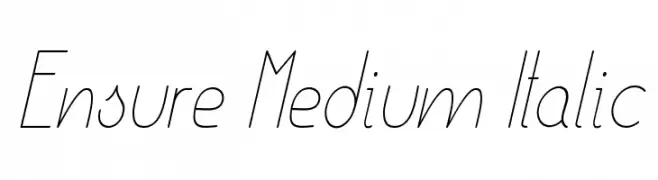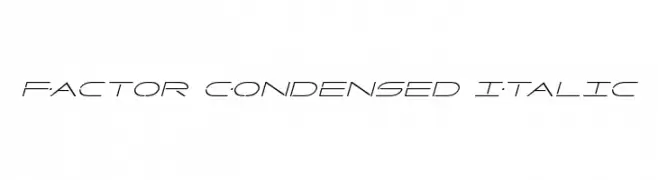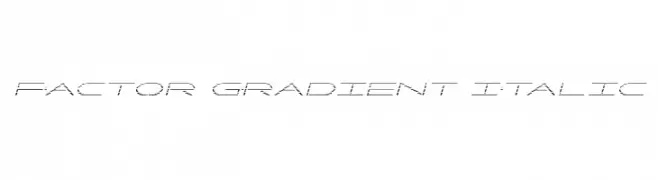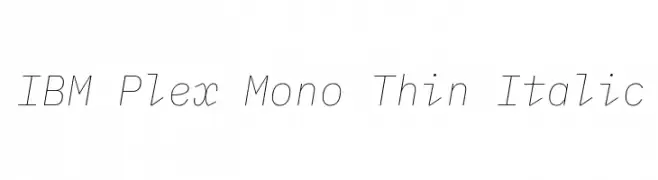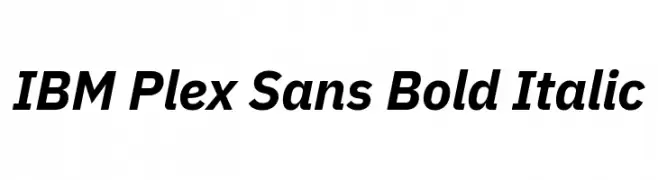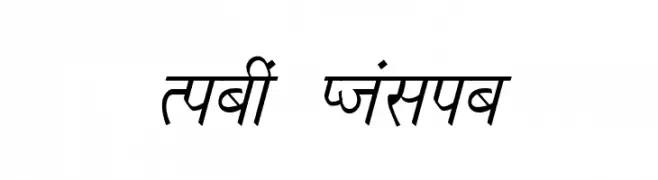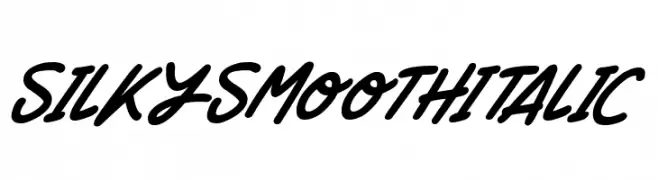
A futuristic, bold, and italicized font with a condensed, modern design.
A futuristic, condensed italic font with sleek, geometric lines.
A sleek, italic font with a futuristic and dynamic design.
A bold, blackletter font with intricate detailing and a historic Gothic style.
A bold, Gothic-inspired font with intricate, angular strokes and sharp edges.
A bold, dynamic font with blocky, slanted characters and thick strokes.
A bold, geometric font with a dynamic, slanted design.
A bold, geometric outline font with a modern and futuristic style.
A bold, geometric outline font with a modern, futuristic style.
An elegant italic font with a modern, fluid style.
A dynamic, cursive script font with elegant, flowing letterforms.
A playful, handwritten-style font with consistent strokes and rounded edges.
A bold, italic font with a dynamic and modern style.
A bold, handwritten-style font with smooth curves and an expanded width.
A playful, handwritten-style italic font with smooth curves and consistent strokes.
A sleek, modern italic font with elongated, flowing curves and sharp angles.
A sleek, modern sans-serif font with an extra-light italic style.
A modern, light, italic font with smooth curves and low contrast.
A bold, italic, and modern font with geometric precision.
A sleek, italicized font with a modern and elegant style.
A bold, italicized font with a modern, dynamic style.
A bold, outlined, and italicized font with a modern, three-dimensional look.
A bold, outlined, gradient, italic font with a dynamic, three-dimensional look.
Bold, italicized font with a three-dimensional outline effect.
A bold, italic font with a cloud-like texture, perfect for creative and playful designs.
A bold, italicized font with rounded, playful characters and dynamic slant.
A modern italic script with a playful, handwritten style.
A bold, 3D italic font with rugged outlines and dynamic style.
A bold, condensed, and italicized font with a dynamic and energetic style.
A bold, jagged, and italicized font with a rugged, distressed style.